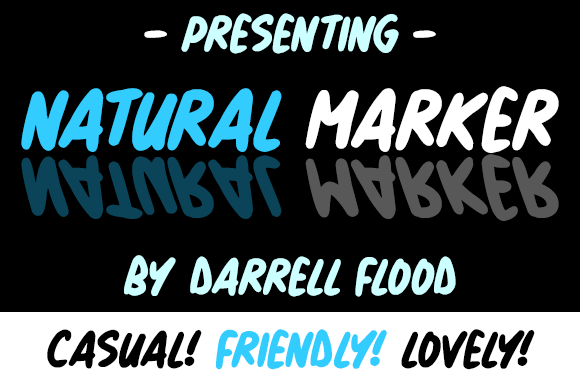
Natural Marker Font
About Natural Marker Font
The Natural Marker is a neat, hand-written font in a thick felt-tip marker style. Perfect for white boards, signs, and general food packaging!